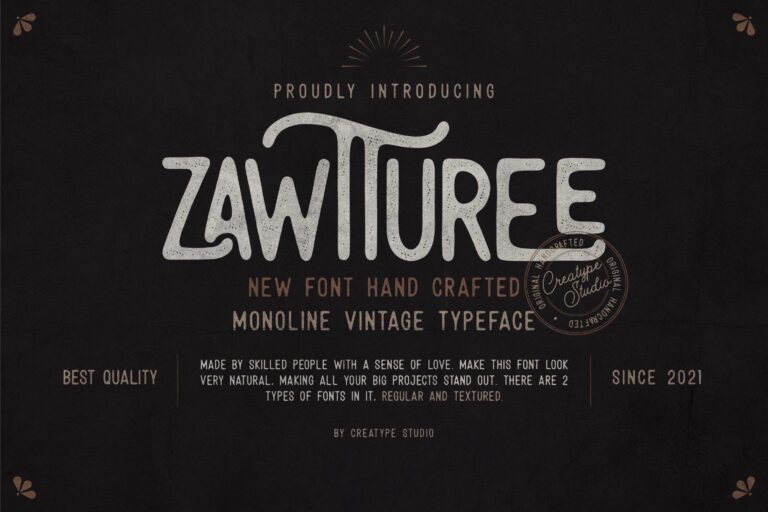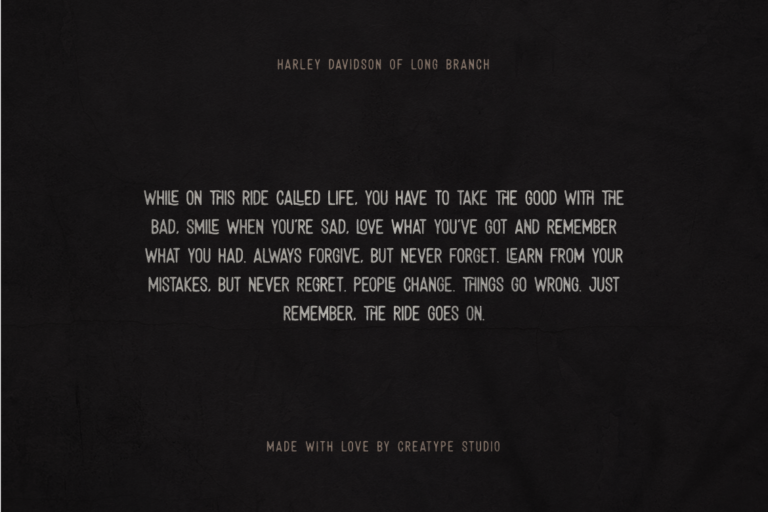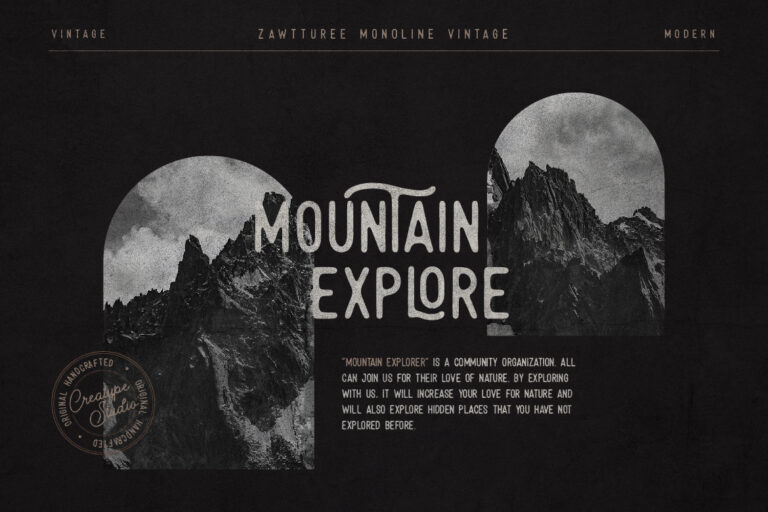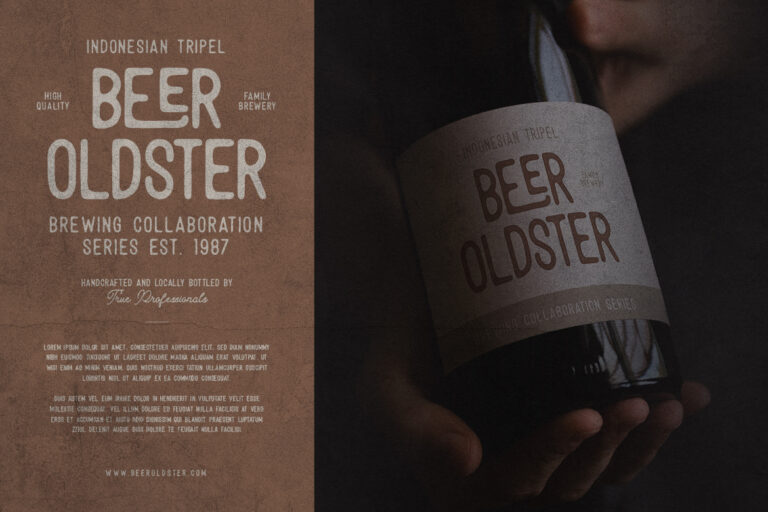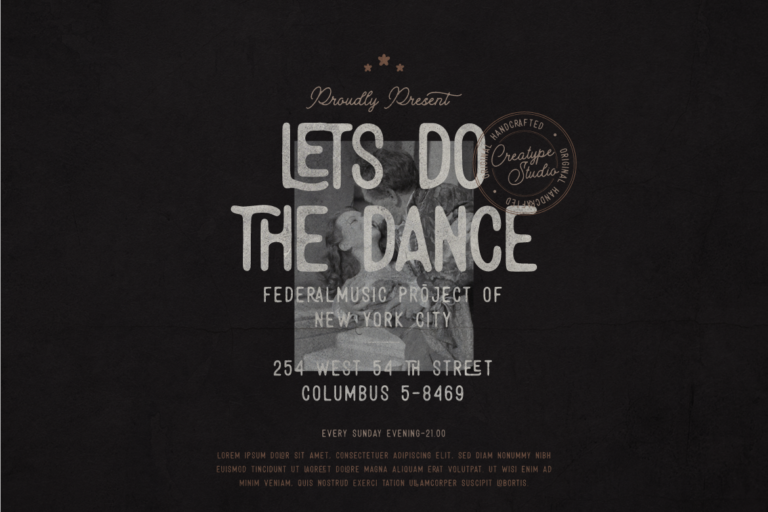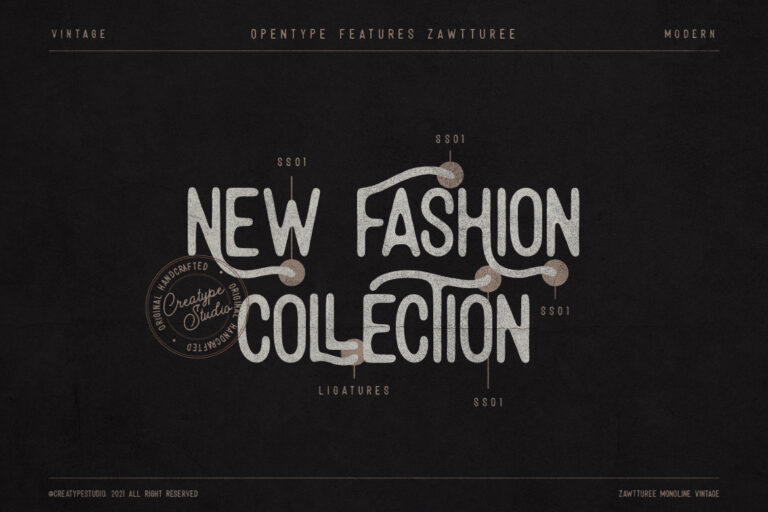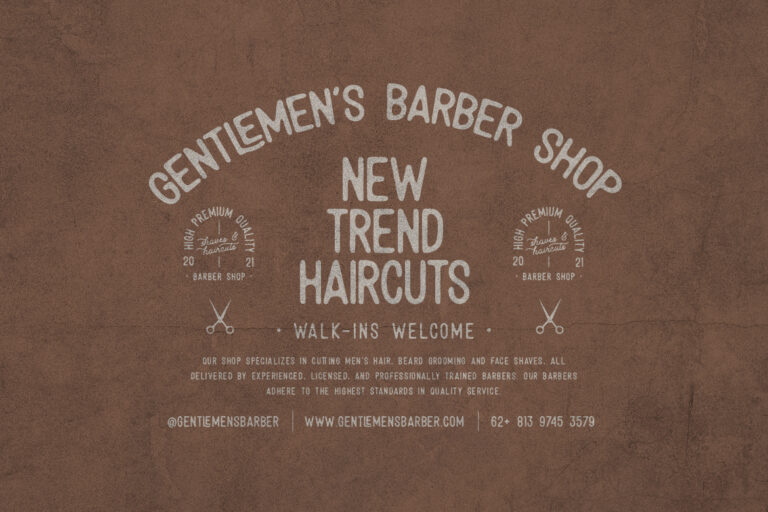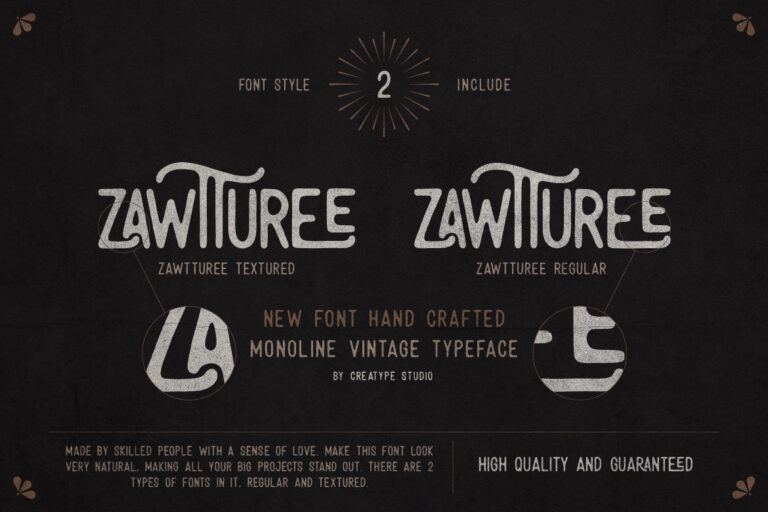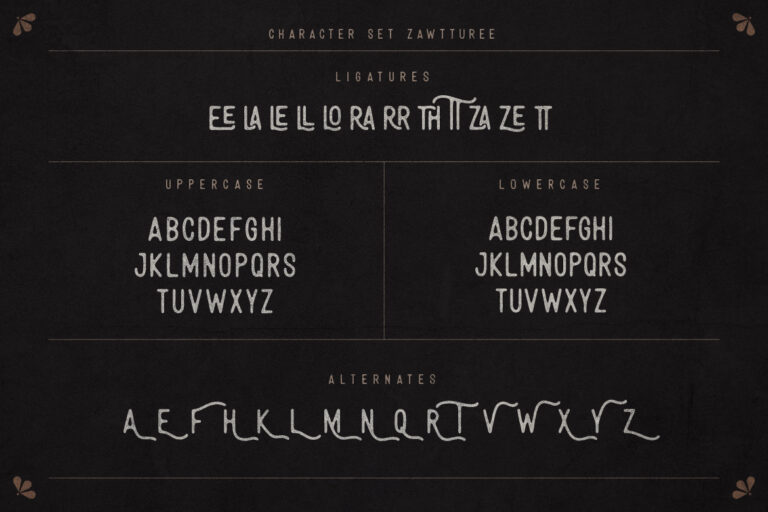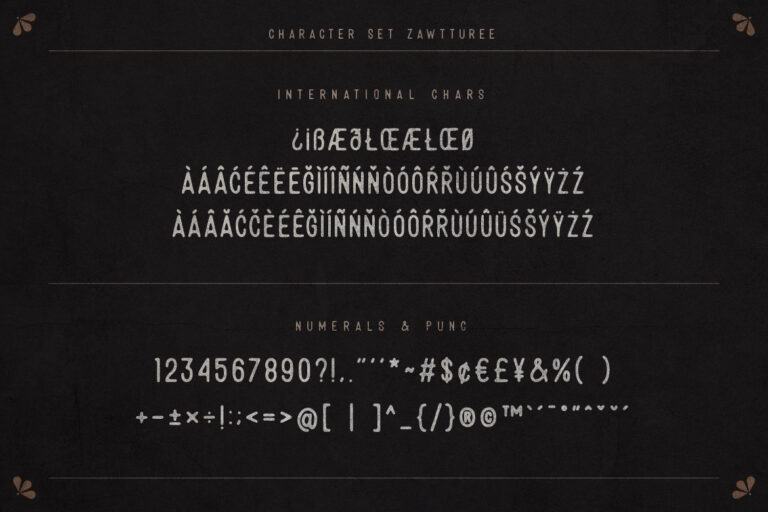
Zawtturee Monoline Vintage
Zawtturee is a vintage monoline typeface created by skilled people with a genuine sense of love. This font looks so natural, there are 2 types of fonts in it regular and textured. Zawtturee is perfect for all your big projects, which makes your project stand out.
Zawtturee is perfect for branding projects, logo, wedding designs, social media posts, advertisements, product packaging, product designs, label, photography, watermark, invitation, stationery and any projects that need handwriting taste.